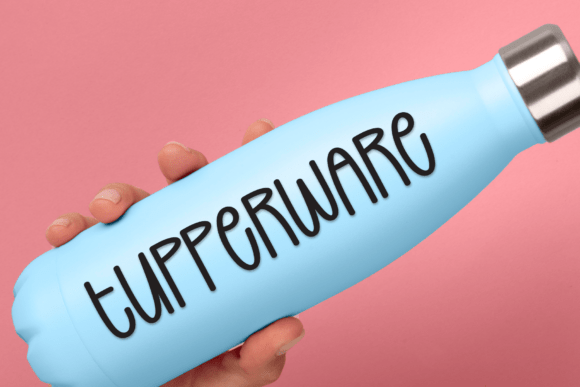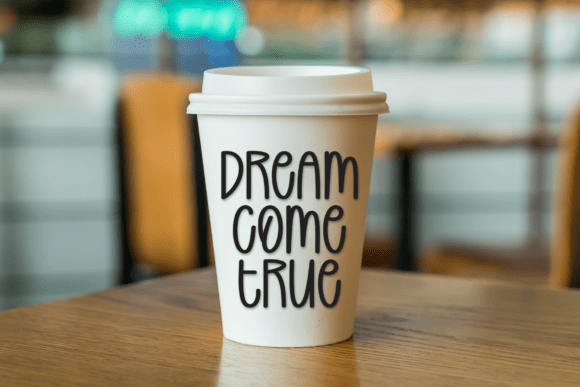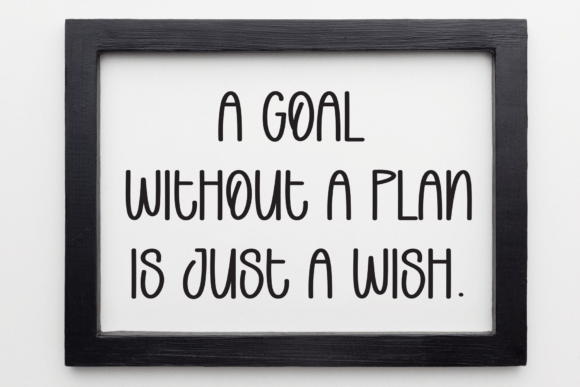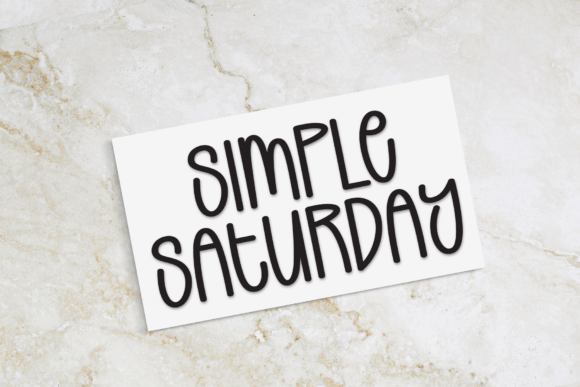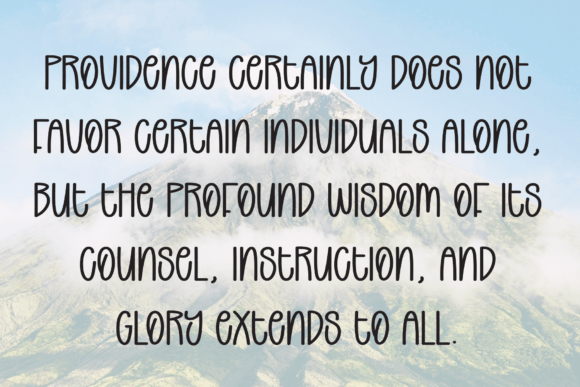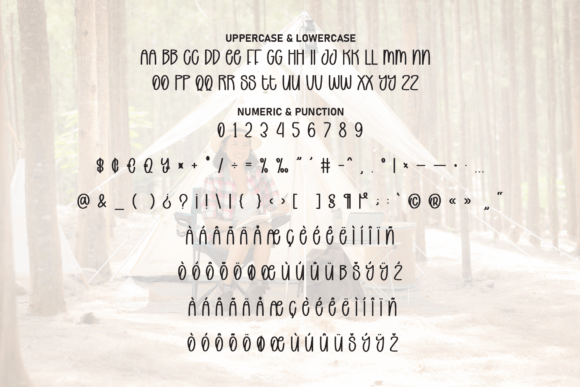
Camping Somebody Font: The Perfect Companion for Your Next Design Adventure
You know that moment when you’re brainstorming a new project, and suddenly, the perfect font pops into your head? For many designers, that moment is a game-changer. And for those looking to add a fresh, approachable vibe to their next design, Camping Somebody Font is sure to be the perfect companion.
This charming display font combines modern simplicity with a playful touch, making it ideal for posters, branding, packaging, and social media graphics. With its clean shapes, soft edges, and well-balanced letterforms, Camping Somebody Font delivers both readability and personality, adding a friendly touch to any project. Whether you’re working on a casual campaign or a more formal brand, this versatile font is a valuable addition to your design toolkit.
Camping Somebody Font Key Features
- Font Family: Camping Somebody is a unique, hand-drawn font designed for various creative purposes.
- Character Set: The font includes a wide range of characters, including uppercase and lowercase letters, numbers, and punctuation marks.
- Unique Characteristics: Camping Somebody features a playful, handwritten style with varying line widths and subtle imperfections, giving it a distinctive and eye-catching appearance.
Camping Somebody Font Review
I recently had the chance to work with the “Camping Somebody Font”, and here’s my honest take on it.
- Unique aesthetic: The font has a distinct, quirky feel that’s perfect for projects that need a touch of whimsy.
- Good legibility: Despite its unconventional design, the font is still relatively easy to read, even at smaller sizes.
- Limited font weights: The font only comes in a few weights, which may limit its versatility in certain projects.
- No language support: The font is only designed for English, which could be a problem for projects that require multilingual support.
- Not ideal for body text: While the font works well for headings and titles, it’s not the best choice for large blocks of body text.
The “Camping Somebody Font” is a fun, eye-catching choice for projects that need a bit of personality. While it’s not without its limitations, it’s a great option for designers looking to add some visual interest to their work. Just be aware of its limitations and use it judiciously to get the most out of it.
Use the Camping Somebody Font in moderation, as its playful nature can be overwhelming if overused. Pair the font with more formal or elegant fonts to create visual balance. Experiment with different font sizes and colors to add emphasis and create visual interest.
The Camping Somebody Font is ideal for:
- Camping and outdoor-themed designs
- Playful and casual marketing materials
- Titles and headings for blogs and websites
- Designs that require a fun and lighthearted tone
Is the Camping Somebody Font available in different weights and styles?
Yes, the Camping Somebody Font is available in a range of weights and styles, including regular, bold, italic, and bold italic. This allows for flexibility and customization in your design projects. You can choose the weight and style that best suits your needs and aesthetic.